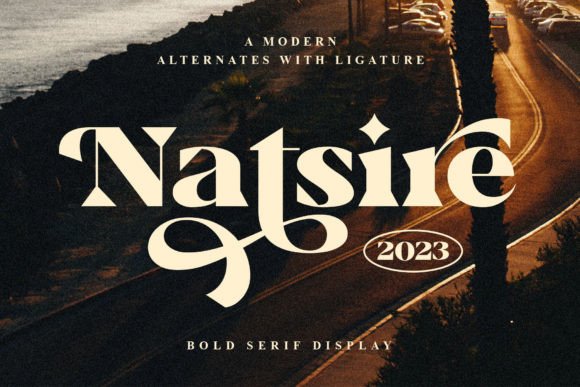
How Natsire Elevated My Brand’s Visual Identity
I remember the day I decided to update my bakery’s packaging. It was a small moment, but it changed how customers saw my brand. For months, I had been using a generic font on my labels and boxes—something that felt flat and forgettable. Then I stumbled upon Natsire, a modern serif typeface with bold edges and a sharp, clean look. From the first time I used it on a sample label, I knew it was the right choice.
Natsire is more than just a font—it’s a statement. Inspired by modern fashion and classic typography, it has a confident, polished feel that immediately makes your brand stand out. The way the letters sit together gives everything a sense of elegance without being too formal. It feels like the kind of font you’d see on a high-end boutique or a sleek café menu. And that’s exactly what I wanted for my bakery.
Since I started using Natsire, I’ve applied it across all my branding materials. On product labels, thank-you cards, social media posts, and even my website banners, it adds a consistent touch of professionalism. I especially love how it looks on my custom-designed box labels. The boldness of the font makes the names of my pastries pop, while the sharp edges give them a modern twist that feels fresh and inviting.
Typography plays a huge role in how people perceive your brand. It’s the first thing they notice, and it shapes their impression before they even read a word. With Natsire, I noticed that my customers were paying more attention to my packaging. They would comment on how “clean” and “modern” it looked. That’s not something I could have achieved with my old font.
One of the best parts about Natsire is its versatility. It works well as a display font for headlines, logos, and decorative accents. But it’s also readable enough to be used in body text if needed. I use it for titles on my Instagram stories and for promotional flyers. When paired with a clean sans serif font, it creates a balanced look that’s both elegant and approachable.
For someone who’s not a designer, choosing the right font can feel overwhelming. I found that Natsire was easy to work with. It comes with hundreds of alternative characters and ligatures, which gave me more creative freedom when designing my labels and menus. Plus, the file formats are compatible with most design tools, making it simple to integrate into my workflow.
When I first started using Natsire, I made sure to test it on different mediums. How did it look on a small label? Would it be legible on mobile screens? Did it still feel good when printed on packaging? I tested it on everything from my bakery boxes to my online shop graphics, and each time, it delivered the same polished look. It’s a font that adapts well to different sizes and backgrounds, which is crucial for small businesses that use multiple platforms.
I also considered font pairing. Natsire pairs beautifully with a clean sans serif font for contrast. I used it for headings and the sans serif for body text in my digital ads. It created a nice visual hierarchy without being too complicated. If you’re looking for something more decorative, you could pair it with a script or handwritten font, but I found that keeping it simple worked best for my brand’s tone.
Using Natsire has helped me build a more cohesive brand identity. Every piece of material now feels like part of the same story. Whether it’s a thank-you card, a social media post, or a new product launch, the font brings consistency and professionalism to everything I create. It’s not just about looking good—it’s about feeling trustworthy and memorable.
If you’re thinking about upgrading your brand’s visuals, I encourage you to try Natsire. It might seem like a small change, but the impact can be big. A single font can transform how your business is perceived, and for me, that’s been a game-changer.